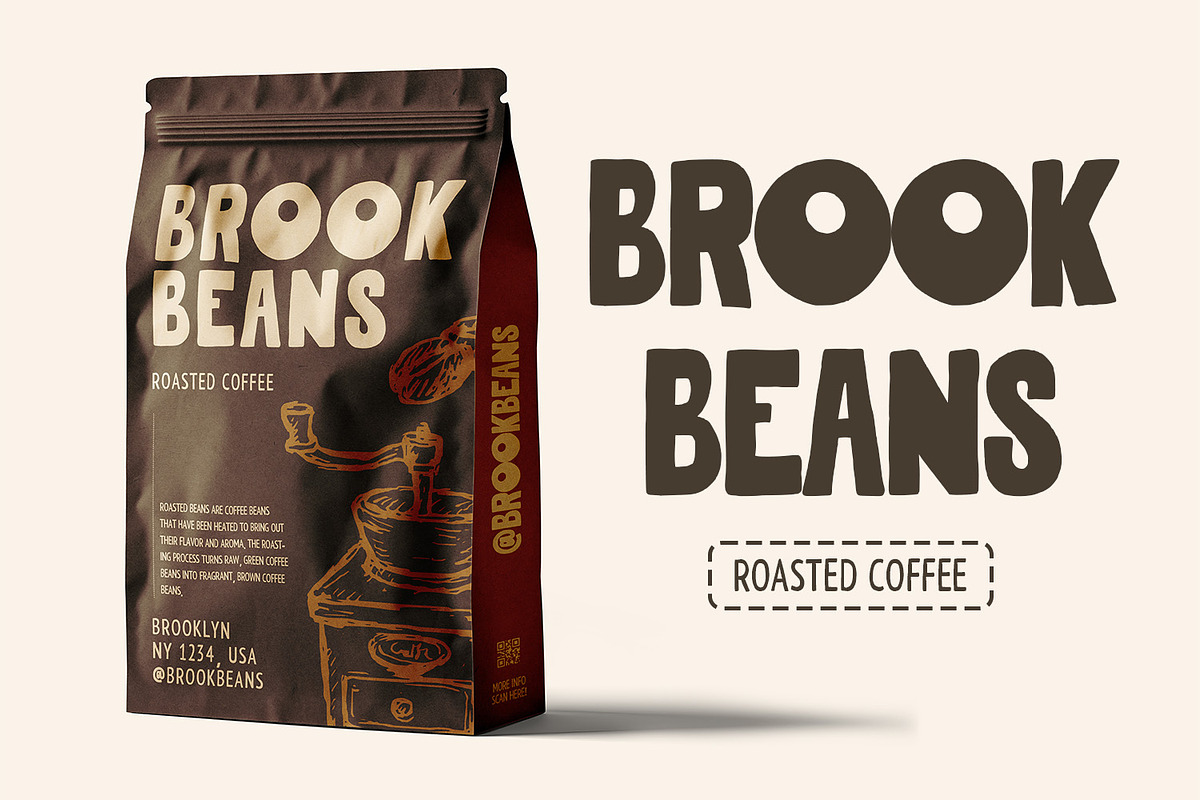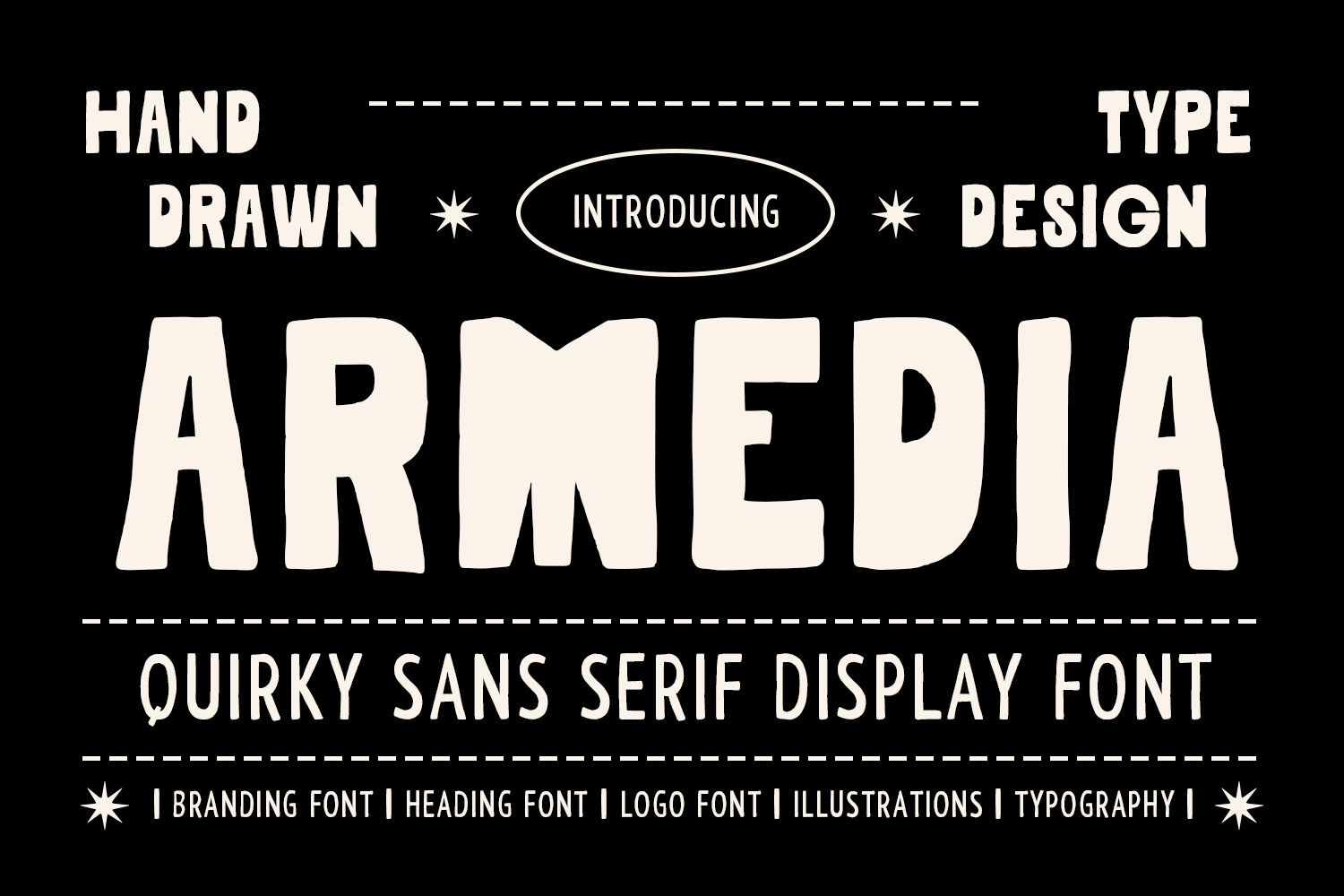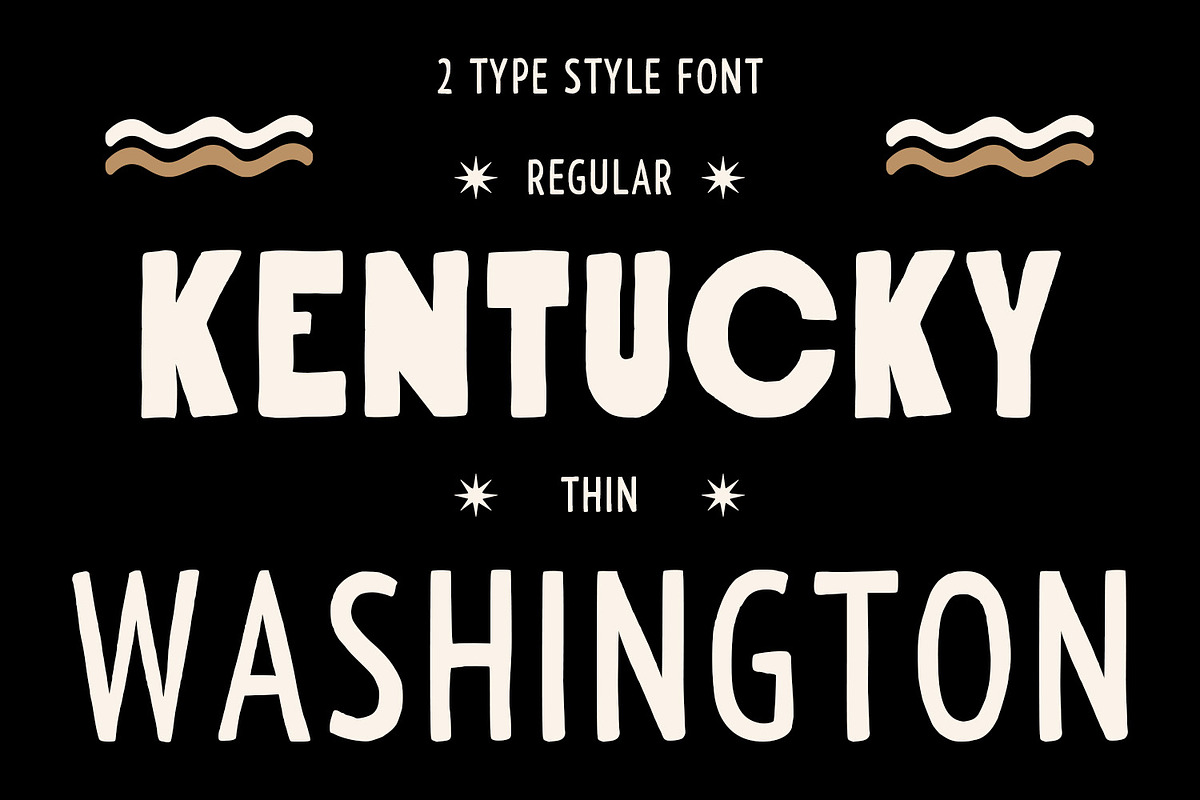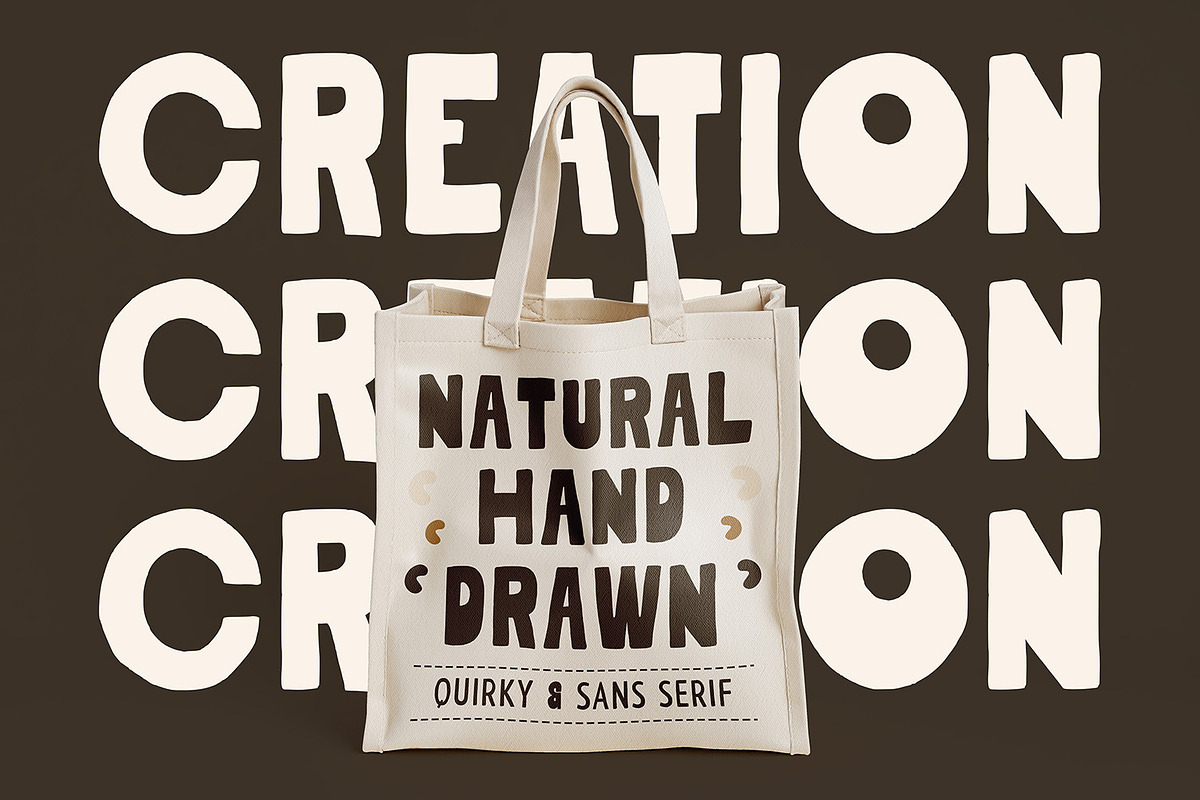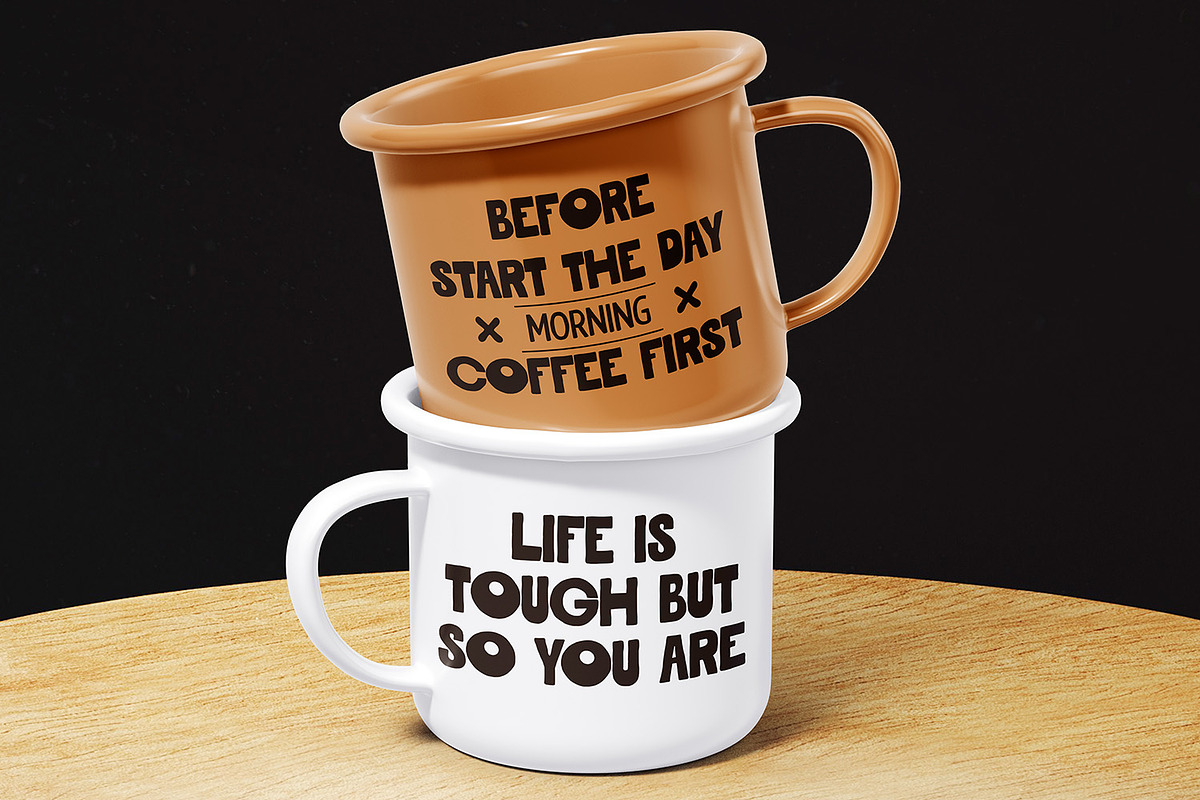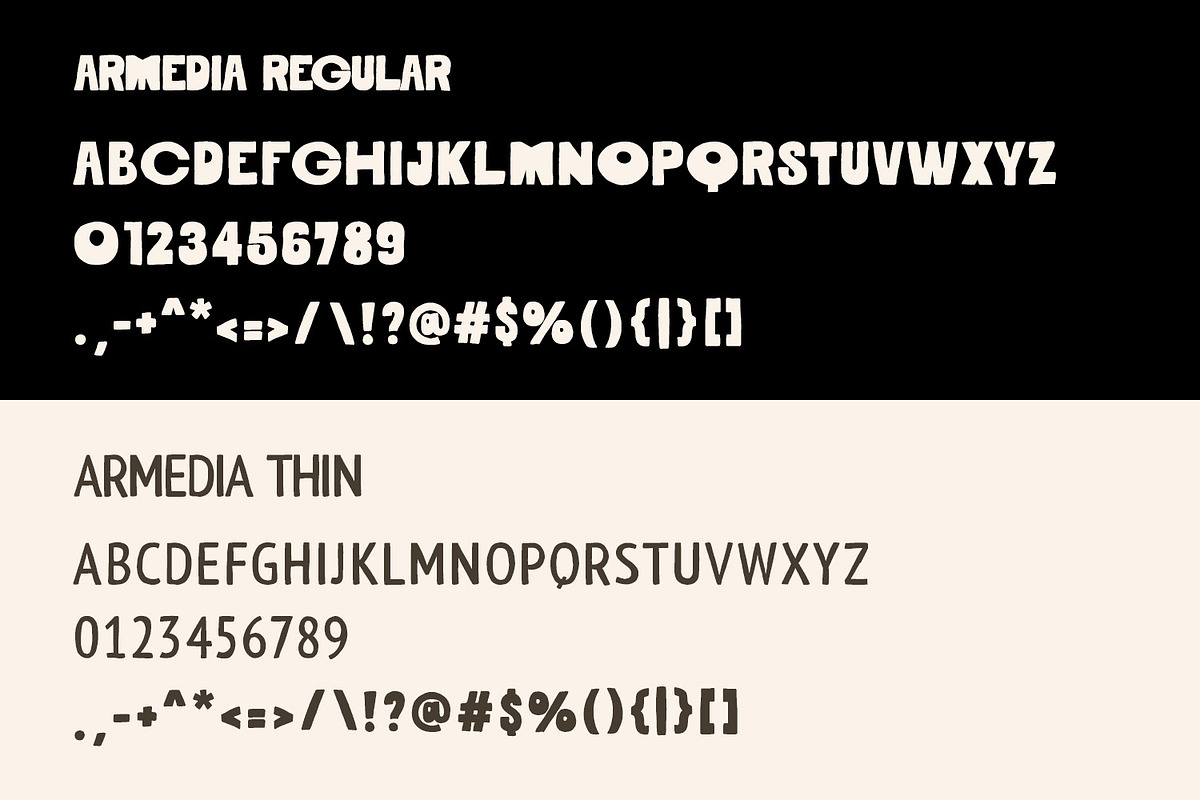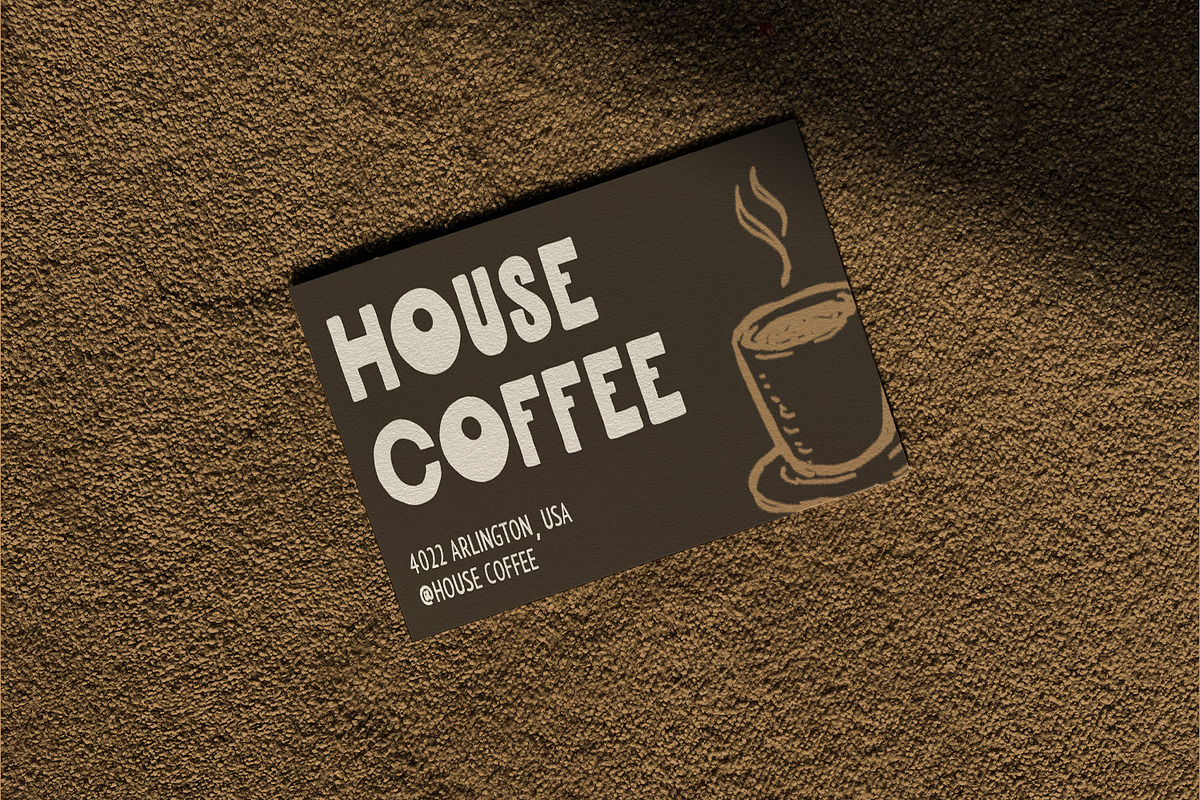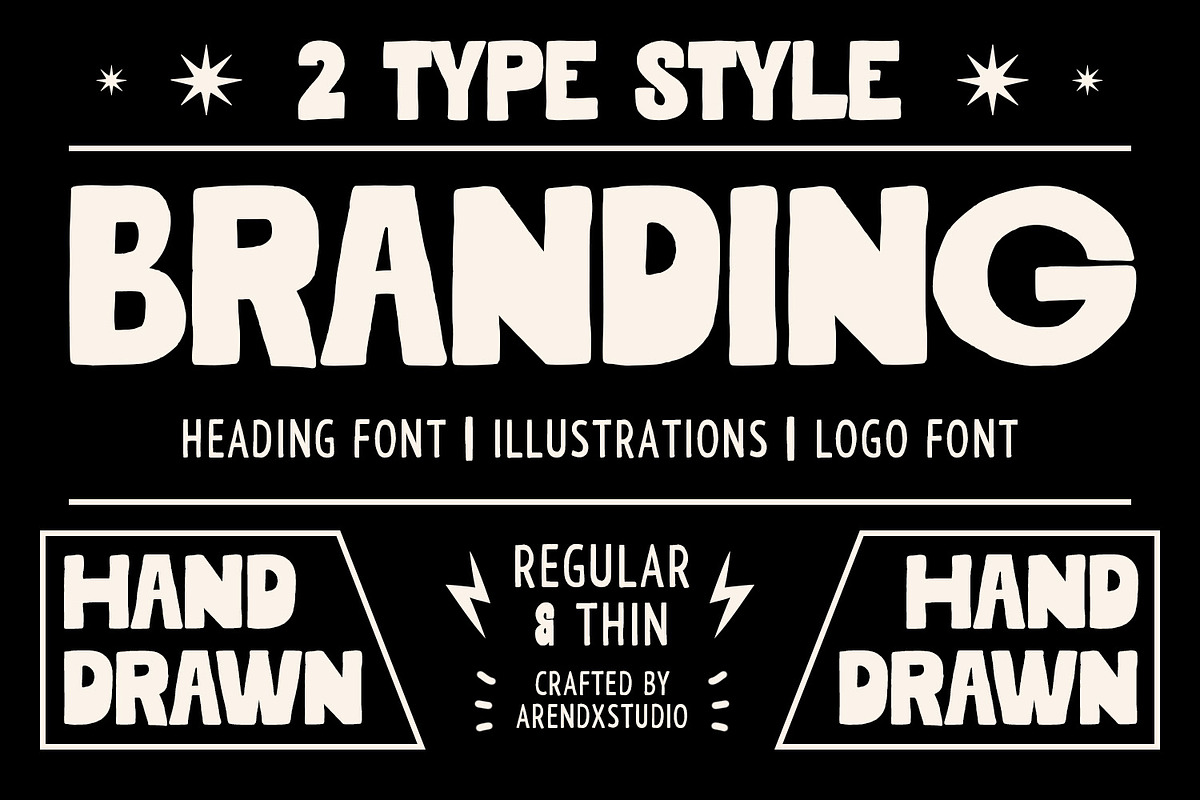
Armedia Font
Font Description: Armedia
Armedia is a quirky retro sans-serif display font that bursts with playful personality and nostalgic charm. Inspired by the bold typography of 1960s advertisements and space-age design, Armedia features uneven strokes, whimsical curves, and cheeky character alternates that make it perfect for projects needing a touch of retro-futuristic fun.
### Key Features:
- Quirky Letterforms: Slightly off-kilter proportions with unexpected bulges and pinches for hand-drawn authenticity.
- Retro-Futuristic Vibe: Think The Jetsons meets vintage cereal boxes—playful yet polished.
- Alternate Glyphs: Swappable characters (like wobbly "Q"s or zigzag "M"s) for custom word art.
- Optimized for Display: Best used in headlines, logos, posters, and packaging.
### Perfect For:
- Vintage branding (cafés, record labels, barbershops)
- Retro gaming graphics
- Funky merchandise (T-shirts, stickers)
- Space-themed or pop art designs
Features : Uppercase and lowercase characters